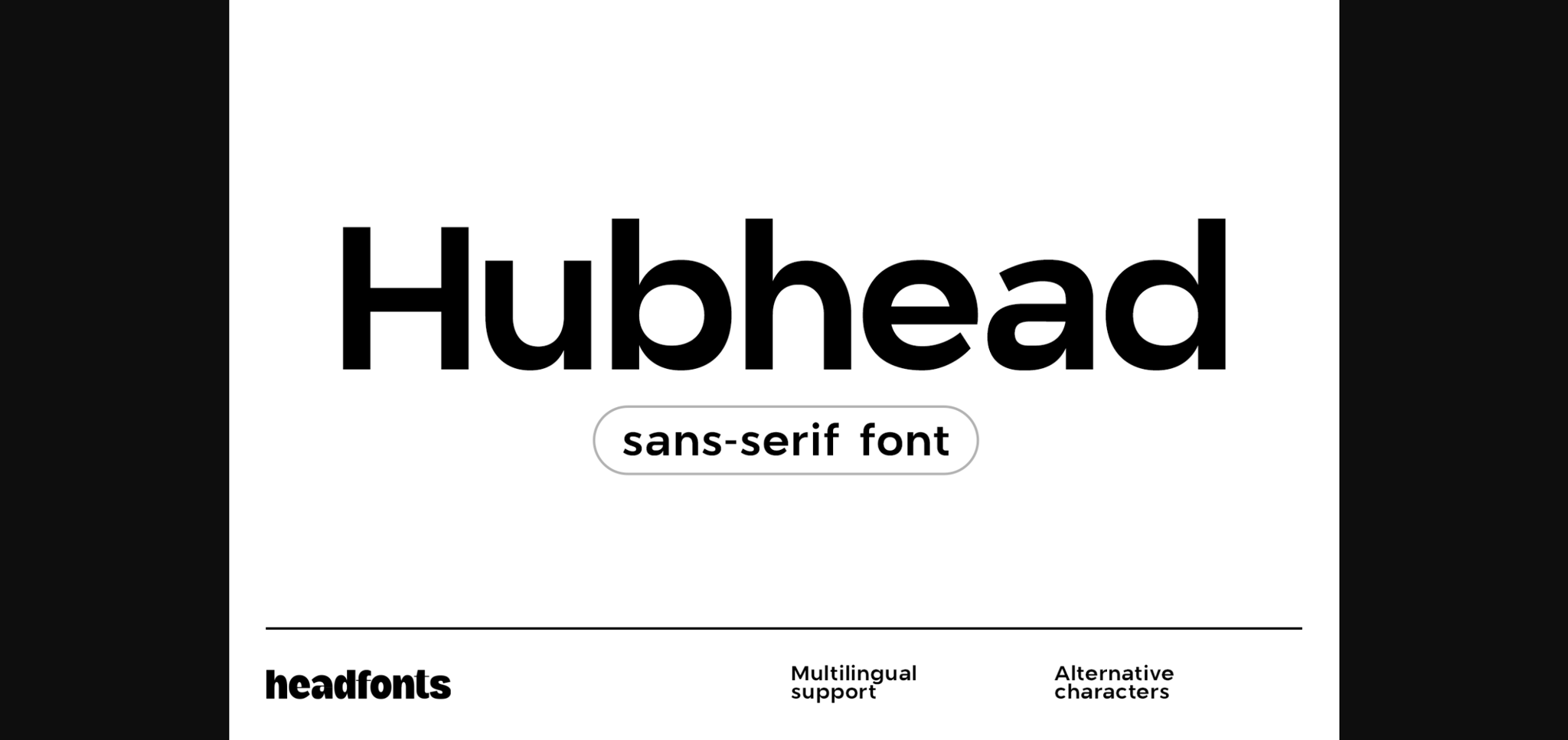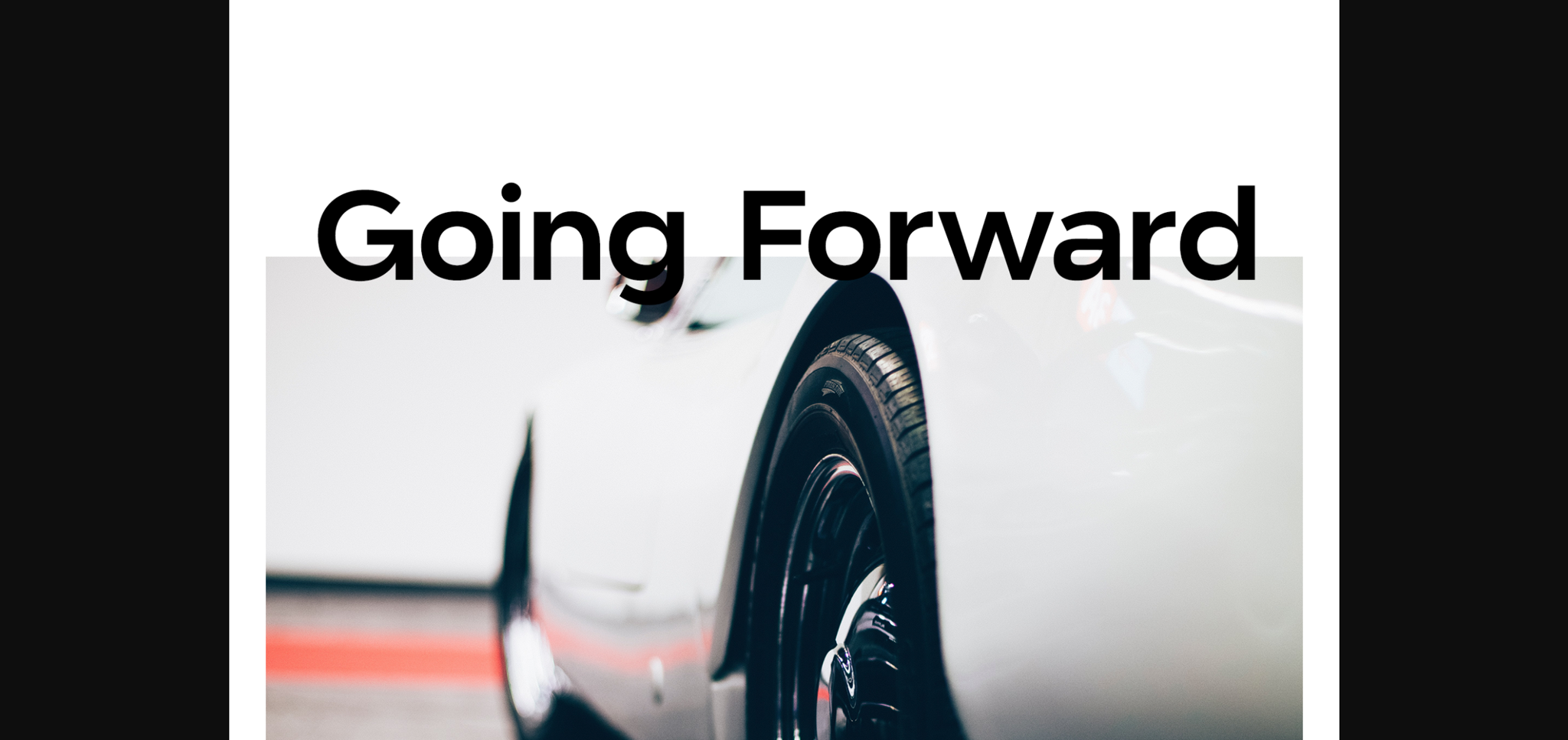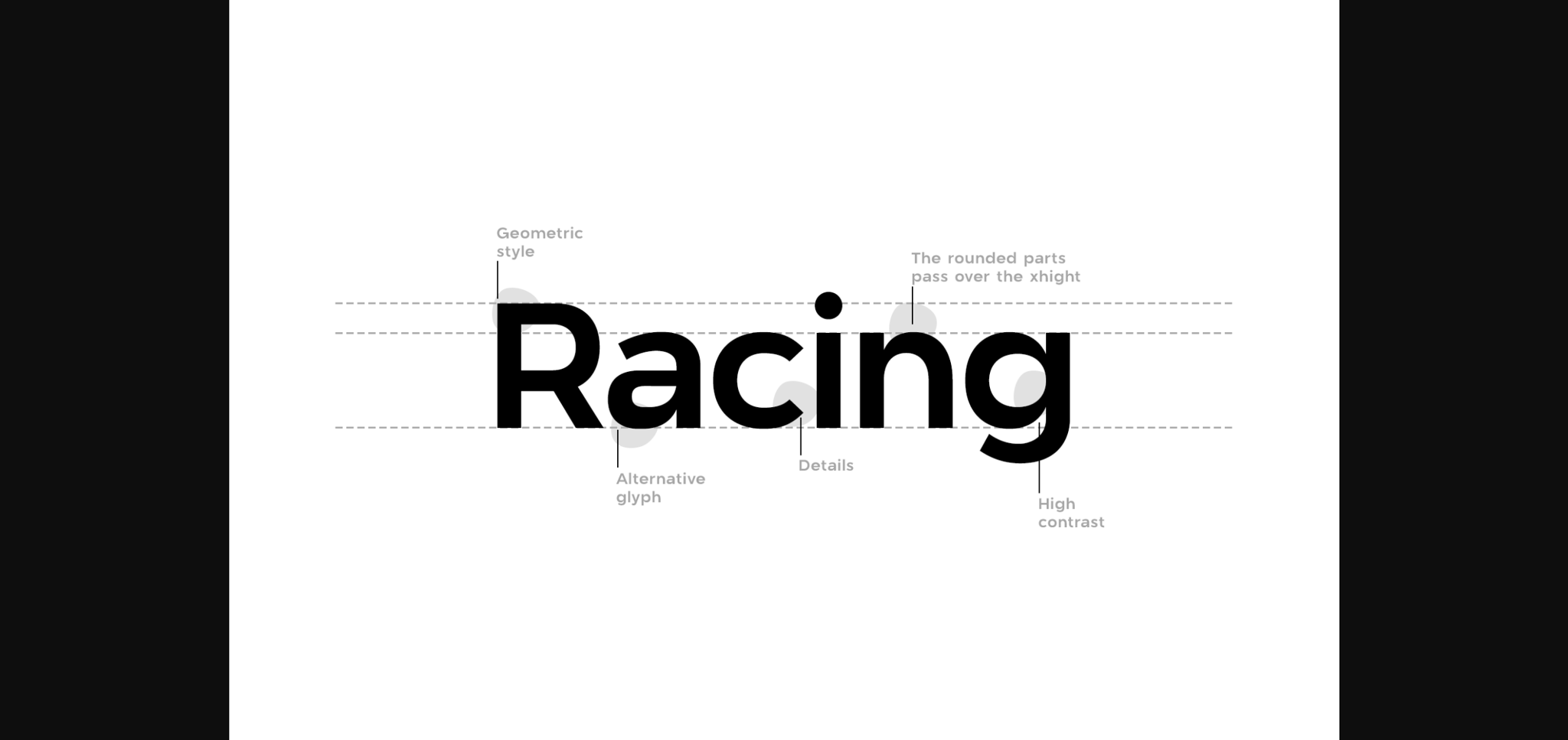
About Hubhead Font
Hubhead is an clean and natural sans serif font, that features classy look. Not too thin and not too thick, balanced and varied, this font was designed to enhance the beauty of your projects.